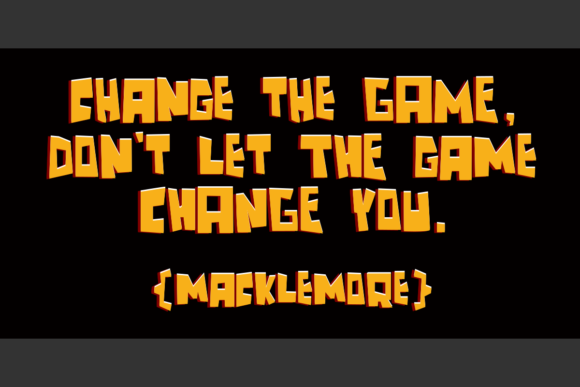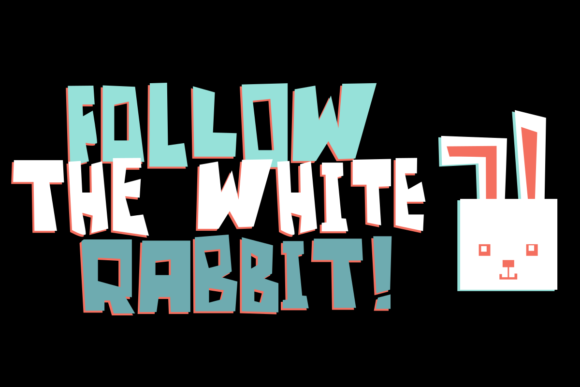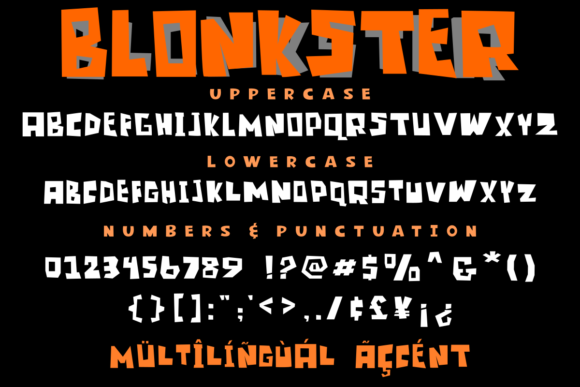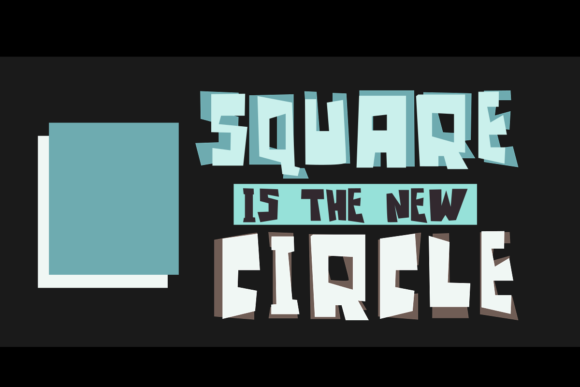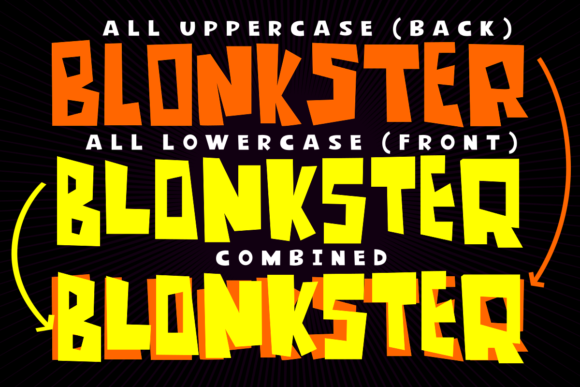
The Blonkster Font: A Designer’s New Best Friend
I still remember the frustration of working on a project, hours spent perfecting every detail, only to be held back by one thing: the font. It was a client request for a bold, eye-catching headline that would make their brand stand out. I scoured the internet, tried font after font, but nothing seemed quite right. That was until I stumbled upon Blonkster. This fantastic display font has been a game-changer for me, and I’m excited to share its awesomeness with you! 😊
An Honest Review of Blonkster
What I Love About Blonkster ✨
- ✅ Versatility: Blonkster is best suited for headlines of all sizes, as well as for blocks of text that have both maximum and minimum variations.
- ✅ Legibility: Even at smaller sizes, Blonkster remains clear and easy to read.
- ✅ Visual Impact: This font makes a statement, adding a touch of personality to any design.
- ✅ Cross-Platform Compatibility: Blonkster works beautifully across various mediums, including web, print, and moving images.
- ⚠️ Limited Use Cases: While Blonkster excels in display settings, it may not be the best choice for body text or smaller captions.
- ⚠️ Overuse: As with any bold font, using Blonkster excessively can overwhelm the viewer.
- Experiment with Blonkster’s OpenType features, such as glyphs and stylistic alternates, to add visual interest to your text.
The Story Behind Blonkster
Blonkster was created by a talented type designer who wanted to craft a font that would make a bold statement. Inspired by retro signage and futuristic typography, Blonkster was born. Its unique blend of chunky and sleek elements makes it perfect for designers looking to add some personality to their work.
| Font Name | Blonkster Font |
| Author | Deedeetype |
| Q: What type of projects is Blonkster best suited for? | A: Blonkster excels in display settings, making it perfect for headlines, titles, and bold statements. |
| Q: Can I use Blonkster for body text? | A: While Blonkster is legible, it’s not recommended for body text or smaller captions. Instead, use it for headlines and titles. |
| Q: Is Blonkster compatible with non-Latin scripts? | A: Blonkster’s compatibility with non-Latin scripts may vary. It’s best to check with the font designer or foundry for specific information. |